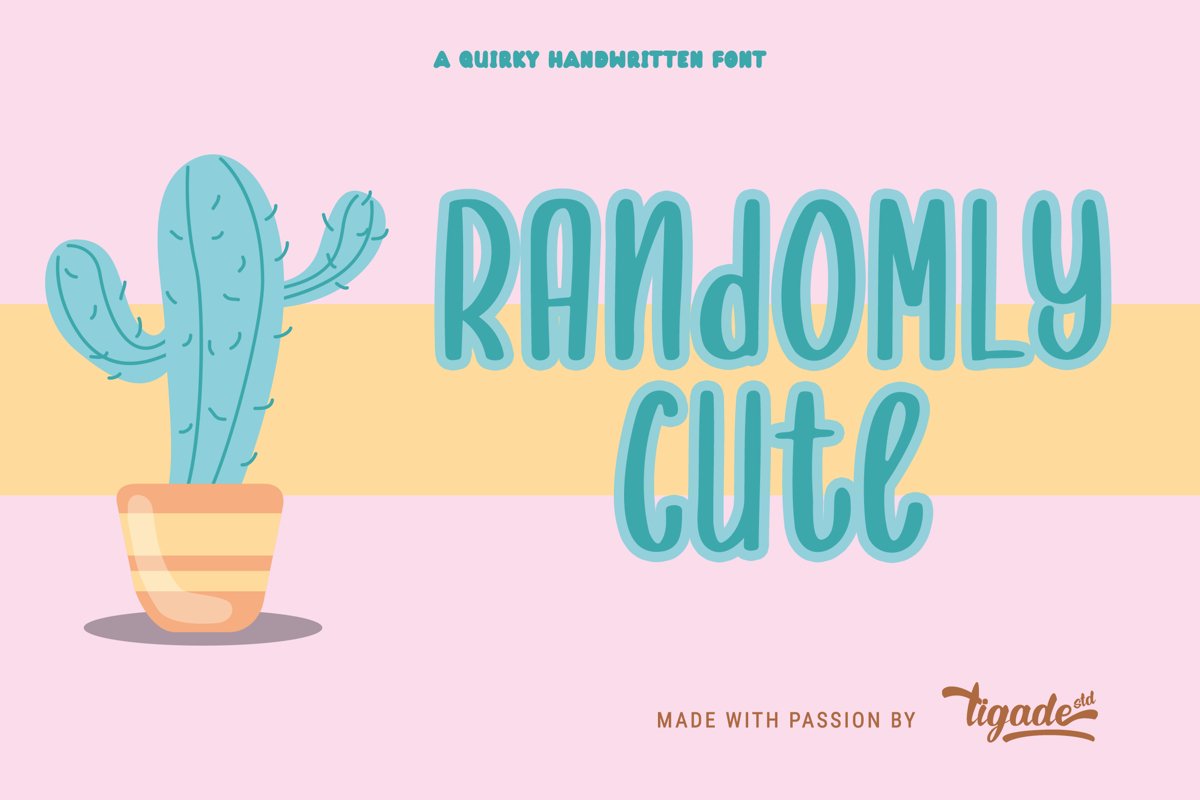
Randomly Cute | Simply Cute & Adorable Crafting Font
Randomly Cute
Randomly Cute. Like the name, it is a very random stroke of kid's handwriting. However, it still has the element of cuteness.
Great for any general design. It is suitable for Logo, Cards, Branding, Social Media, Youtube Thumbnail, Advertisement, Posters, any many others.